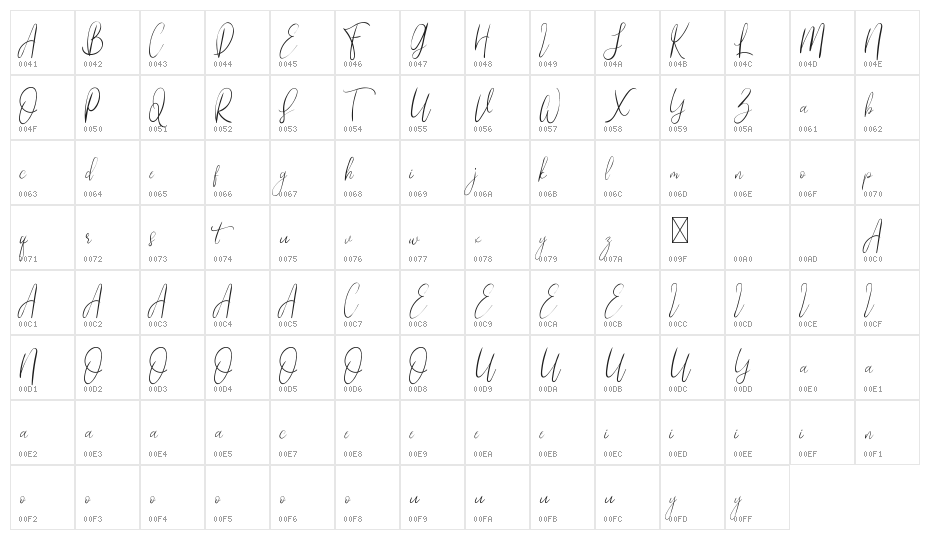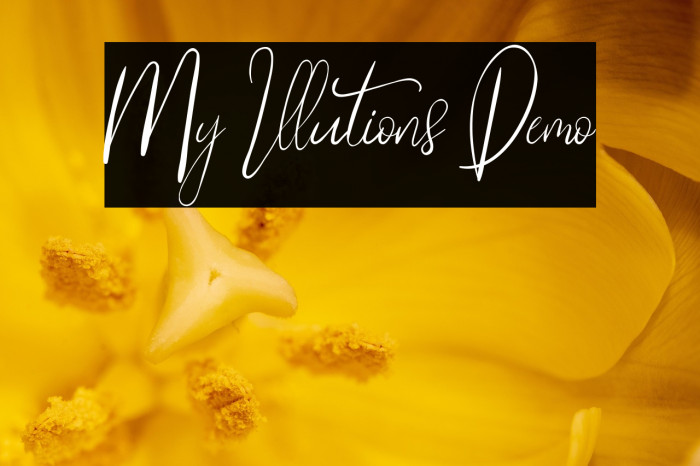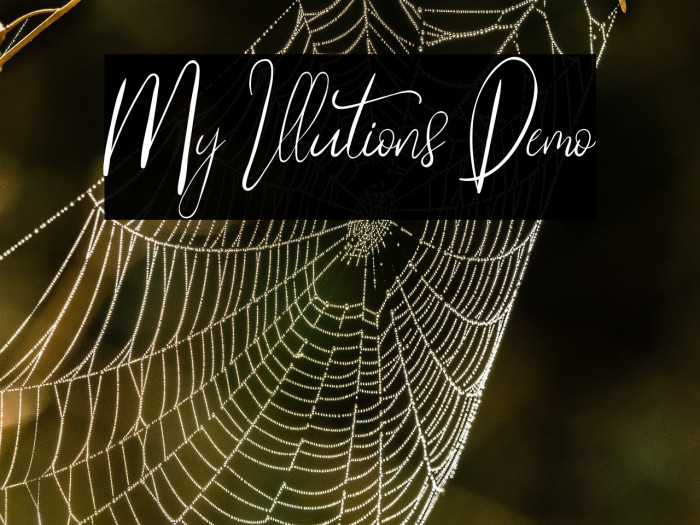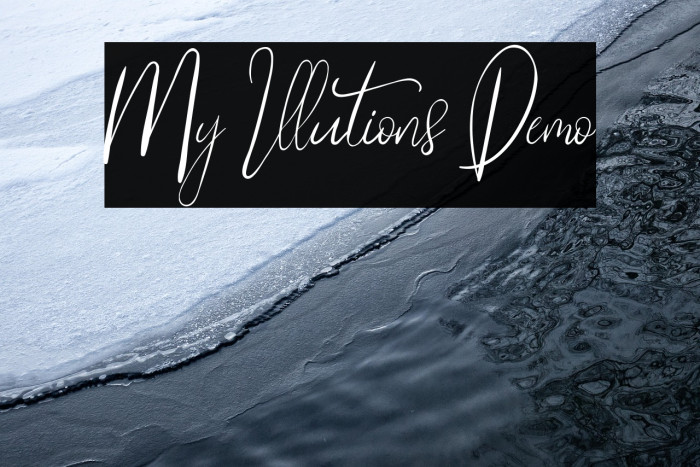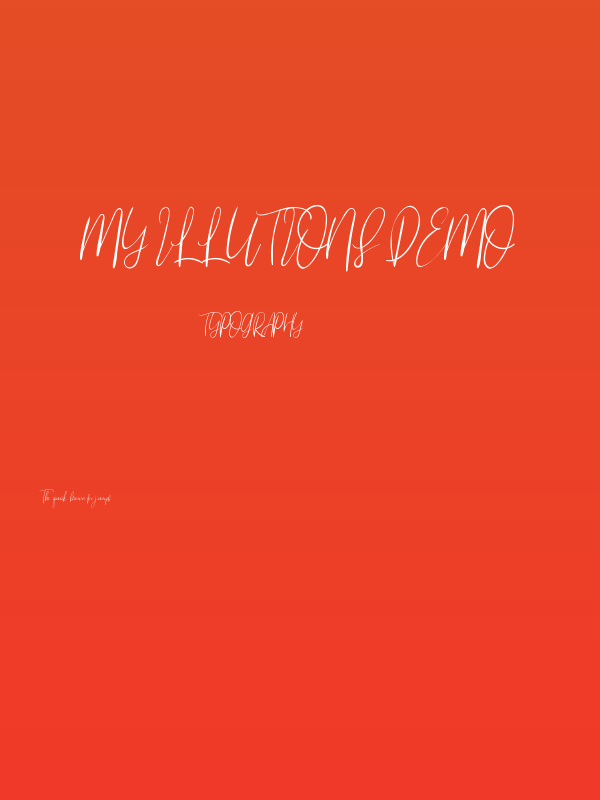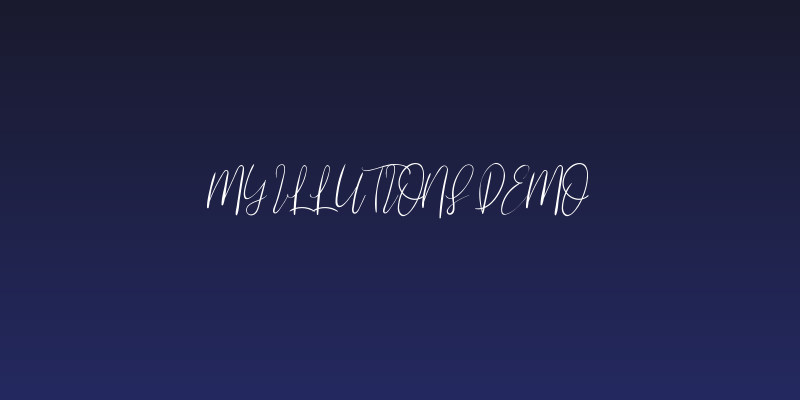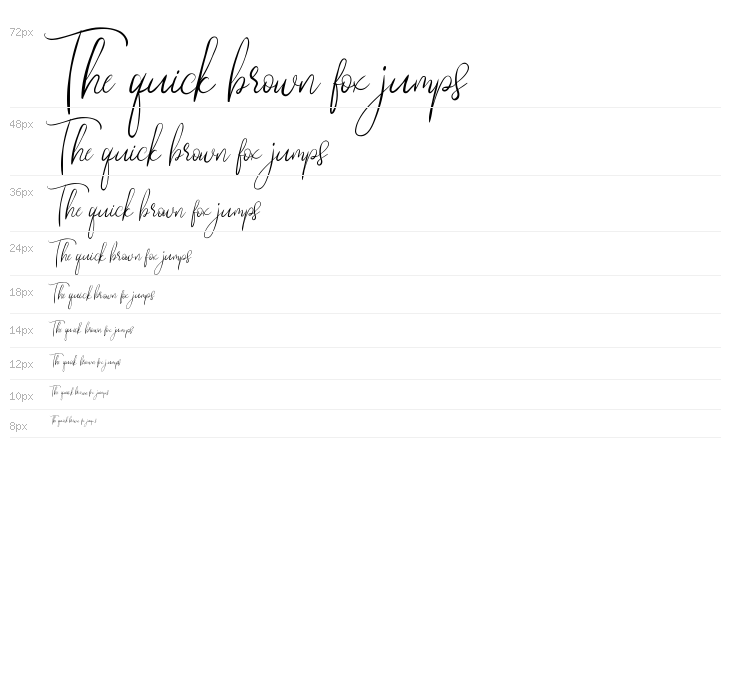
My Illutions Demo Font
My Illutions Demo Description
This font is a beautifully crafted script with elegant, flowing lines that create a sense of movement and grace. The letters are interconnected, giving it a cohesive and harmonious appearance. The uppercase characters are tall and slender, with sweeping curves and delicate loops, while the lowercase letters maintain a consistent style with slightly more compact forms. The font exudes a sense of sophistication and charm, making it ideal for projects that require a touch of elegance. The overall design is both modern and timeless, suitable for a variety of creative applications.
| Proposed Projects | Wedding invitations, elegant branding, greeting cards, and luxury product packaging. |